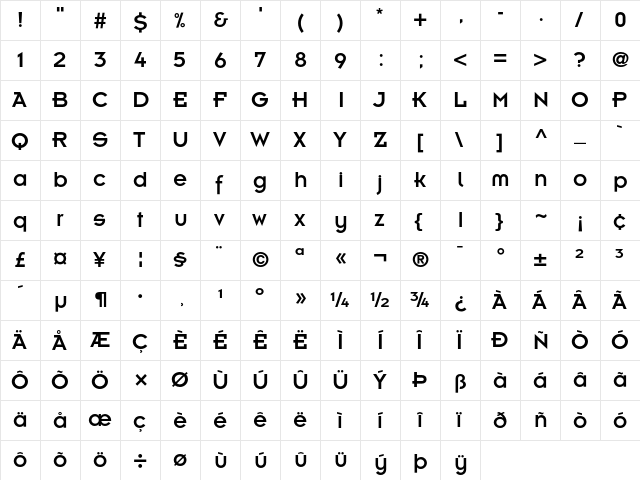
Insignia A
Design Context for Insignia Typeface
Insignia is a composed and adaptable typeface that performs quietly and consistently across a wide range of design contexts.